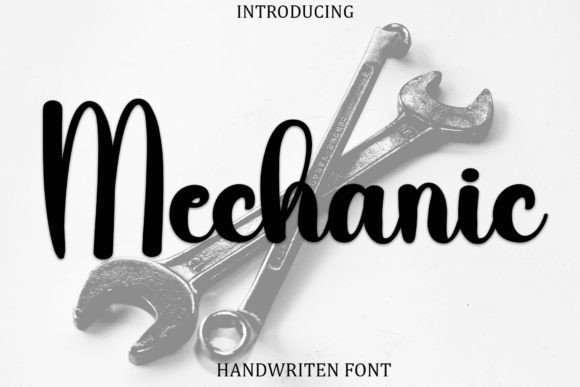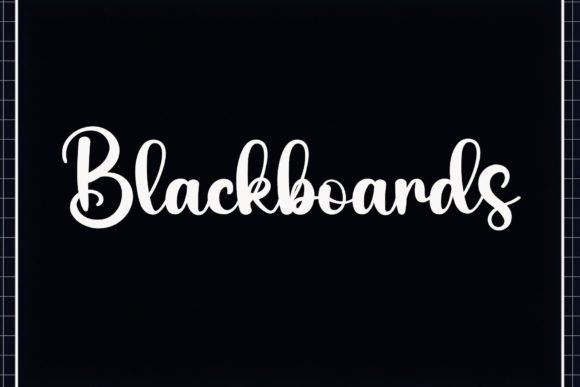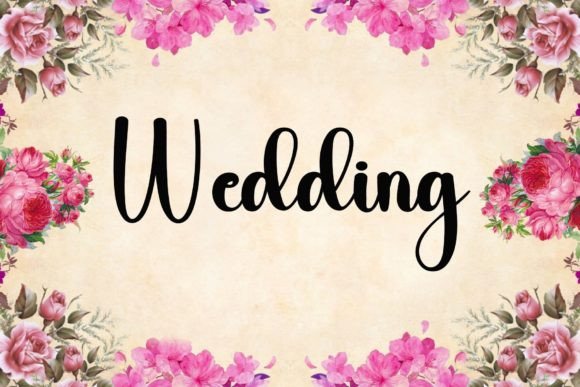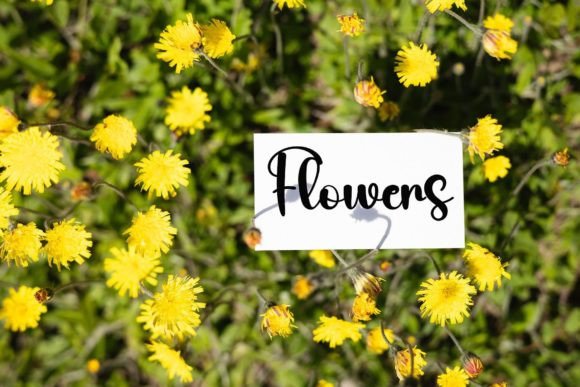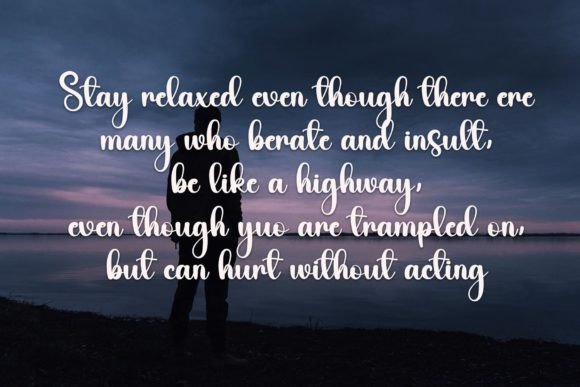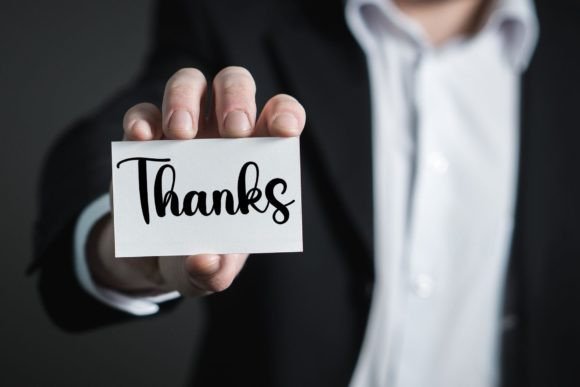
Mechanic Font
About Mechanic Font
“Mechanic” is a font that combines delicacy with authenticity, offering a well-rounded handwritten style that adds a touch of genuine charm to any design project. Its versatility makes it an ideal choice for various applications, particularly for crafty projects that require authentic typography. By incorporating “Mechanic” into your designs, you can infuse them with a sense of elegance and authenticity, ensuring they stand out with genuine appeal.
**Delicate Elegance**: “Mechanic” exudes delicate elegance with its refined letterforms and subtle details. The font’s delicate strokes and graceful curves create an understated yet sophisticated appearance, making it suitable for projects that demand a touch of refinement and style. Its delicacy adds a sense of grace and sophistication to the text, enhancing its overall visual appeal.
**Well-Rounded Design**: The well-rounded design of “Mechanic” ensures its versatility in various applications. Its balanced proportions and smooth letterforms contribute to its readability and visual harmony. Whether used in wedding invitations, birthday cards, or elegant logos, the font seamlessly integrates into different design contexts, enhancing the overall aesthetic.
**Crafty Authenticity**: “Mechanic” is perfect for crafty projects that require authentic typography. Its handmade quality adds a sense of craftsmanship and authenticity to the text, making it suitable for DIY projects, personalized branding, and handmade creations. The font’s crafty charm resonates with audiences seeking genuine and heartfelt designs.
**Personalized Appeal**: “Mechanic” offers a personalized appeal, making it ideal for projects that require a touch of individuality. Its handwritten style creates a sense of connection and uniqueness, allowing the text to feel personal and tailored to the audience. The font’s personalized touch adds a warm and inviting atmosphere to the design.
In summary, “Mechanic” is more than just a font; it’s a symbol of delicacy, authenticity, and craftsmanship. Its well-rounded and elegant design, coupled with its crafty authenticity, makes it a valuable choice for a wide range of projects. By incorporating “Mechanic” into your designs, you can infuse them with a sense of genuine charm and personalized appeal, ensuring they resonate with authenticity and elegance. Let “Mechanic” be the elegant and authentic companion that adds a touch of grace to your crafty endeavors, making them truly memorable and heartfelt.